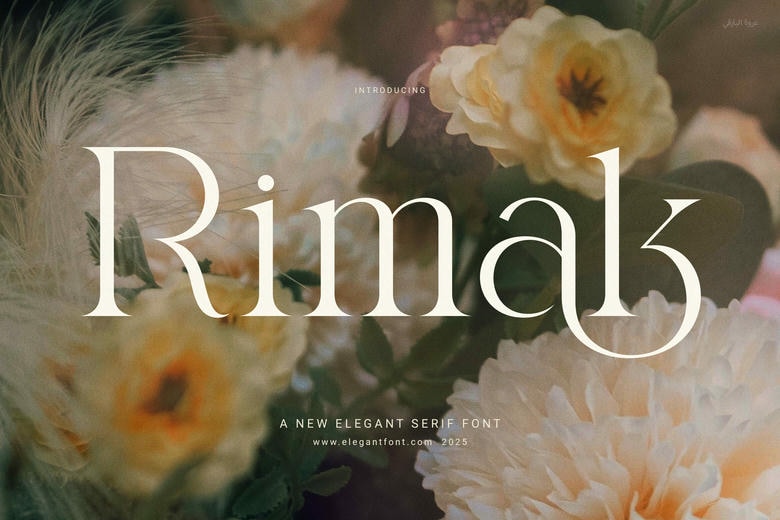
Rimak Elegant Serif Font is a combination of classic and contemporary elegance in a single elegant typeface. Rimak is designed with the perfect proportions of balance and gives a clean and graceful serif appearance that immediately uplifts any design. This font will give you a high-end, professional look whether you are designing on digital or printed media.
At the initial sight, Rimak draws the eye with its smooth, uniform letterforms and practical ligatures. Such ligatures not only contribute to the visual flow of text but also provide a unique appeal to every design. Due to its sleek and elegant feel, Rimak can be used in a range of projects – particularly those that require a touch of class and modernity.
Besides being aesthetically pleasing, Rimak is user-friendly. It is also readable in all sizes and this makes it a good option in both headlines and long text. Whether you’re developing a bold brand identity or laying out editorial content, this font adapts easily to your needs.